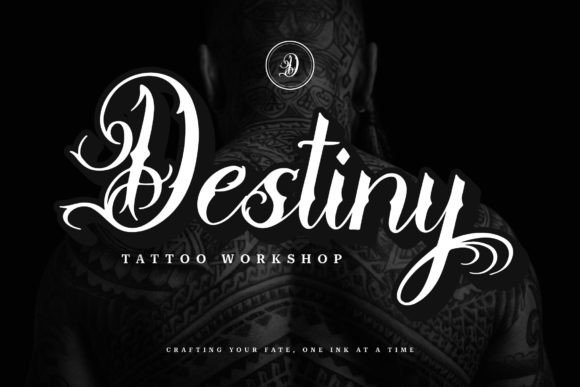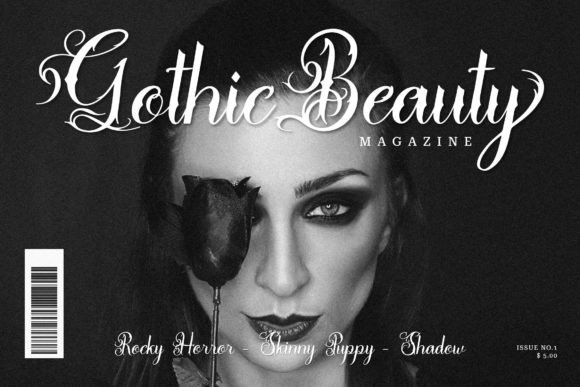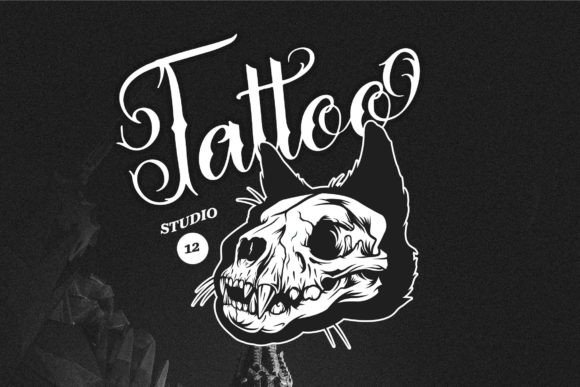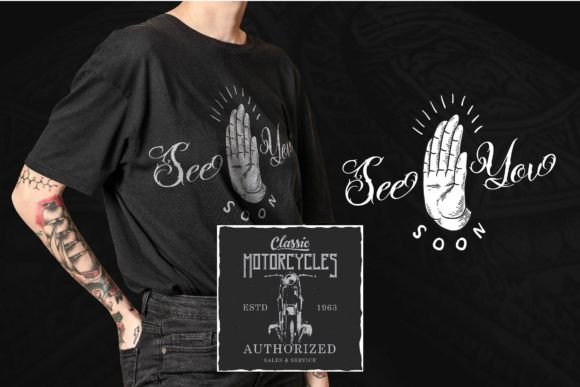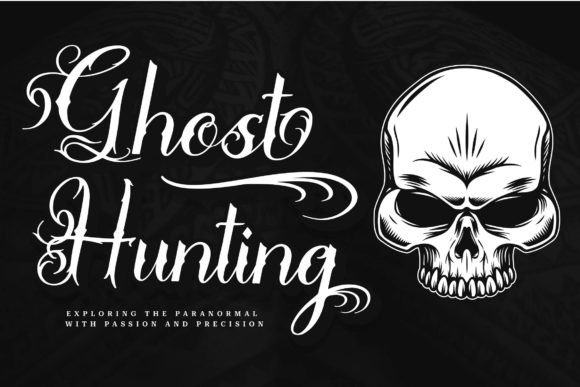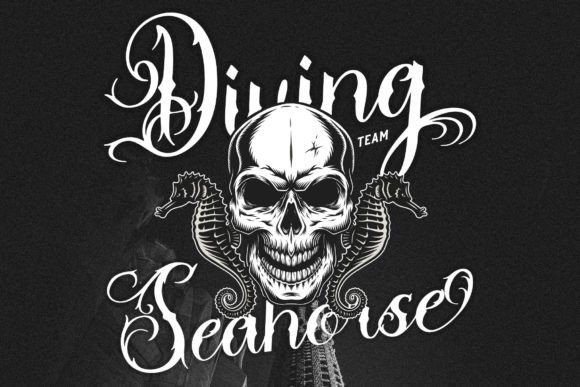
Introduction to Ettolny Fullkit Font
As designers, we’ve all been there – staring at a blank canvas, struggling to find the perfect font to bring our creative vision to life. The search can be overwhelming, especially when working on a project that requires a unique and eye-catching touch. That’s where the Ettolny Fullkit Font comes in – a stunning tattoo script font that’s perfect for any project that needs a little extra flair.
With its elegant, hand-drawn design, the Ettolny Fullkit Font is a versatile design resource that can elevate any creative project from logos and branding to homeware designs and product packaging. Its transparent background makes it easy to use in a variety of settings, and its high-quality design ensures that it will look great on any medium.
Key Features of Ettolny Fullkit Font
- High-quality font kit with a transparent background, ideal for creative projects that require a seamless design integration.
- Comprehensive font pack featuring a wide range of styles and weights, perfect for designers seeking a versatile design resource.
- Unique characteristics, such as custom-designed letterforms and intricate details, set Ettolny Fullkit Font apart from other font kits in the market.
Honest Review: Ettolny Fullkit Font
As a designer, I’m always on the lookout for high-quality design resources to enhance my creative projects. The Ettolny Fullkit Font has caught my attention, and I’m excited to share my honest review with you.
What works well: ✨ The font offers a wide range of styles and weights, making it perfect for various design projects. The font is also highly customizable, allowing me to easily adjust the spacing, size, and color to suit my needs. Additionally, the transparent background option is a great feature, as it provides flexibility when working with different design elements.
Overall, I’m impressed with the Ettolny Fullkit Font’s quality and versatility. While it has some limitations, it’s still a valuable design resource for personal projects or small-scale commercial use. If you’re looking for a high-quality font for your creative project, I recommend giving it a try.
Tips for Getting the Most Out of Ettolny Fullkit Font
Ettolny Fullkit Font is ideal for use in brochures, posters, and business cards. Its high-quality design and free download make it a popular choice for designers and non-designers alike. This versatile font can be used for a variety of creative projects, from logos to social media graphics.